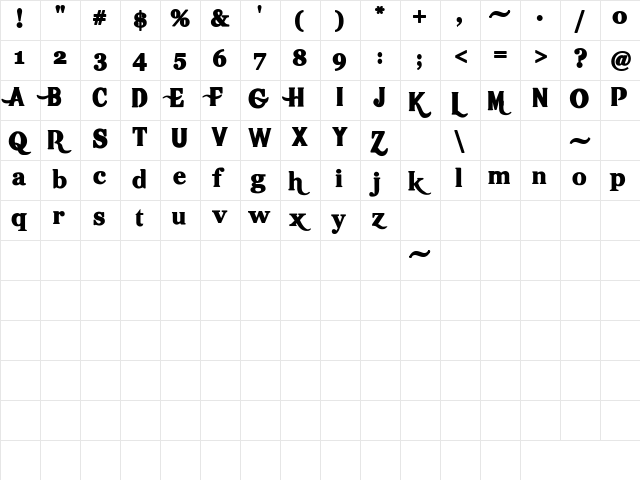
Hot Pizza Normal
Design Context for Hot Pizza Typeface
Hot Pizza is a composed and adaptable typeface that performs quietly and consistently across a wide range of design contexts.